2021 Font Trends for Designers to Use this Year
In 2020, Clif Stoltze and Katherine Hughes, of Stoltze Design, told us about the power of new experimental typefaces, symmetrical layouts with selective deviations, and the value of classic designs.
Gloria Kondrup, design consultant and full-time professor at ArtCenter College of Design encouraged us to “not to play it safe typographically.” Angie Wang and Mark Fox, partners in the award-winning Design is Play design studio, provided sound advice about using blunt force typography, highly readable text and variable fonts, to capture and keep audiences.
What’s up with the Font Trends for 2021?
We’re seeing some clear typeface trends. There will be more use of lighthearted scripts. In addition to a new breed of sans serif designs getting popular use, industrial strength sans are making commanding statements. Fonts with a flourish are still trending and heavyweight display typefaces are attracting attention.
Font Trend #1: Lighthearted Scripts
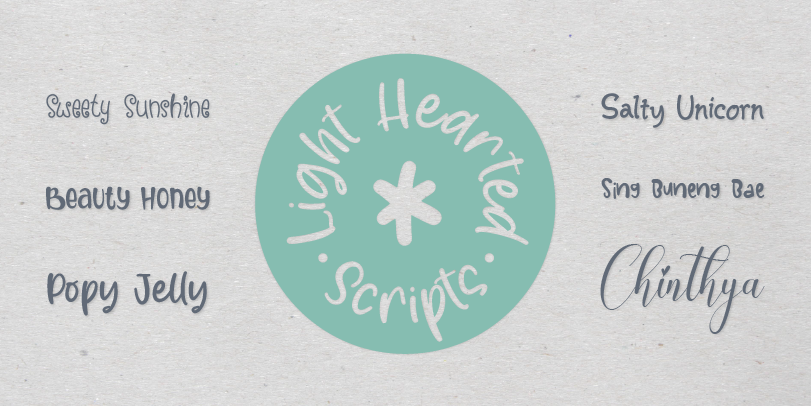
Perhaps it’s because of an optimistic view for 2021 that playful, lighthearted, scripts are being used more. They have a fresh handwritten quality and their free-form characters and unusual stroke weights give the fonts an irreverent, carefree, nature. Children’s brands are a natural for these special scripts. Their playful rounded forms are ideal for products aimed at a younger audience. They’re also happily at home in packaging, cover art and editorial design.
Sweety Sunshine is a breath of fresh air, its letters dance on the page with childlike freedom, while Beauty Honey combines cap and bi-form letters into a friendly, casual script that easily creates distinctive logos, powerful packaging and eye-catching banners. Popy Jelly and Salty Unicorn could be typographic brothers and sisters – or at least very close cousins. They celebrate the charming quirks of hand-drawn letters, while being energetic and playful. Both are ideal for packaging, social announcements and game branding. Chinthya has just a touch of formality, but is never stuffy, while Sing Buneng Bae takes advantage of a bevy of alternate characters to create one-of-a-kind headlines and logos.
Font Trend #2: Sans With a Twist
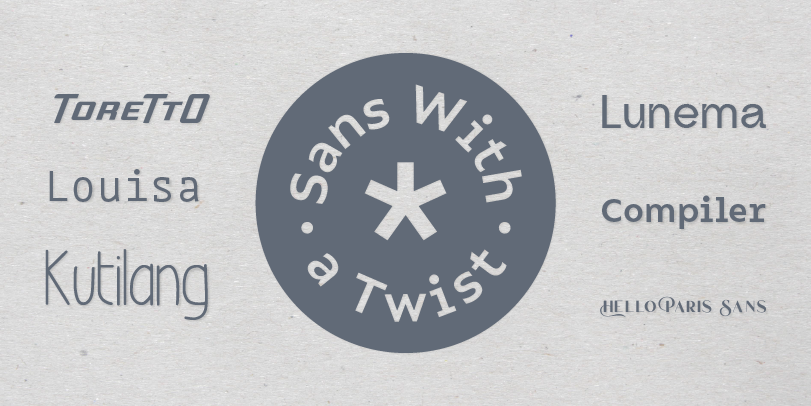
There’re new kinds of sans serif typefaces being drawn, and they’re getting attention. They range from Hubble Space Telescope precise to free-form and wildly romantic. All, however, take the basic sans serif design and add something special.
The Hello Paris Sans family is five weights of all-cap designs with contextual ligatures and flowing swash letters in the shift position. The result is a typographic confection with remarkable versatility. The Compiler family is 32 designs of apparent monospaced exactitude – except it isn’t monospaced. Compiler has the vestigial serifs typical of monospaced designs, while Compiler Plain does without. Brand recognition is guaranteed and the fonts can be used for websites, apps, corporate design, annual reports, wayfinding, and more. Louisa, however, is a true monospaced design. But characters like the lowercase a, e, g, k, v, w, x and y give it a friendly, welcoming demeanor. The italic fonts also have cursive underpinnings. ToreTtO is yet another take on highly structured, geometric sans. It’s forward-slanting caps and small caps can create commanding yet minimalistic statements in headlines, subheads, posters and cover art. Kutilang is a high-waisted, condensed design softened with a subtle calligraphic influence. It’s versatile, space-economical and distinctive. Lunema takes “ink traps” of the 1970s and 1980s to new heights. While very noticeable at large sizes, as point-size is reduced, they create an almost soft, flowing demeanor. The tail of the g and y provide a sharp counterpoint to this implied flexibility, making for a memorable design.
Font Trend #3: Swashes Galore
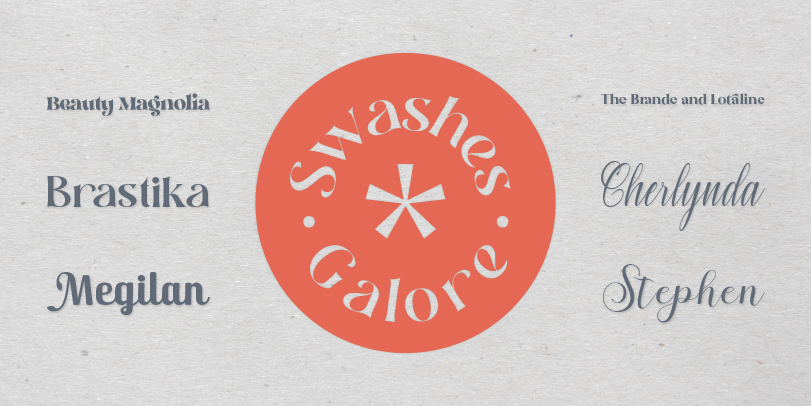
Fonts with swash characters have been around since the 1970s, so they’re not exactly trend setting.
But new designs are being added to the MyFonts offering almost daily. Most are modern versions of the 70s genre, but some are as new as tomorrow.
Brande and Lotaline and Beauty Magnolia are heavyweight serif designs that are surprisingly light on their feet, while Brastika is nine weights of flowing letterforms. The lightest and boldest weights create inviting banners and headings, while the midrange designs are perfect for navigational links and sub heads. Cherlynda is a flowing script that is ideal for crafting invitations, advertising headlines, product packaging, and posters for special events. Stephen is another flowing script with an abundance of swash alternatives, while Megilan is a soft sans serif with extraordinary flourishes.
Font Trend #4: Industrial Strength Sans
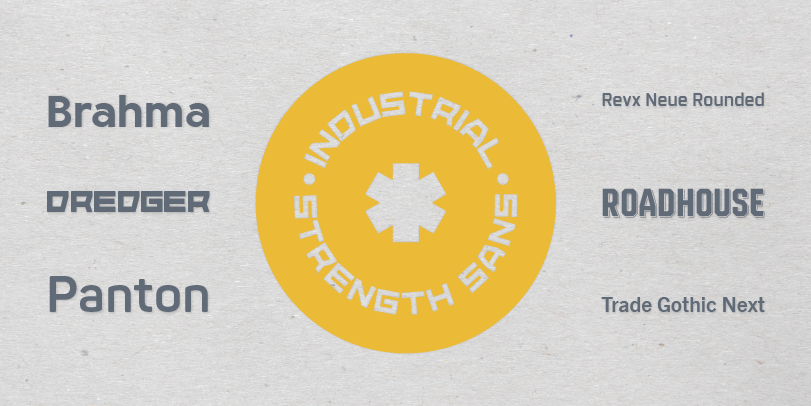
Industrial strength sans serif designs are marked by their straight forward power and design durability. They can be used in a wide variety of applications and with the assurance that they will not look dated or out of style.
Brahma is nine weights of assertive geometric sans suitable for print labels to digital banners – and pretty much everything in between. Revx Neue, and its companion design of Revx Neue Rounded, make for a large square sans serif family that is equally comfortable in print and on screen. The Panton family can only be described as massive. Another square-shouldered design with seemingly no limits, it is a typographic investment that will pay for itself many times over. Trade Gothic Next is a reimagining of the quintessential industrial strength sans serif design. Just as powerful as the original design, the new version is even more versatile. Dredger and Roadhouse are display designs with character that will easily stand the test of time.
Font Trend #5: Heavyweight Display Designs
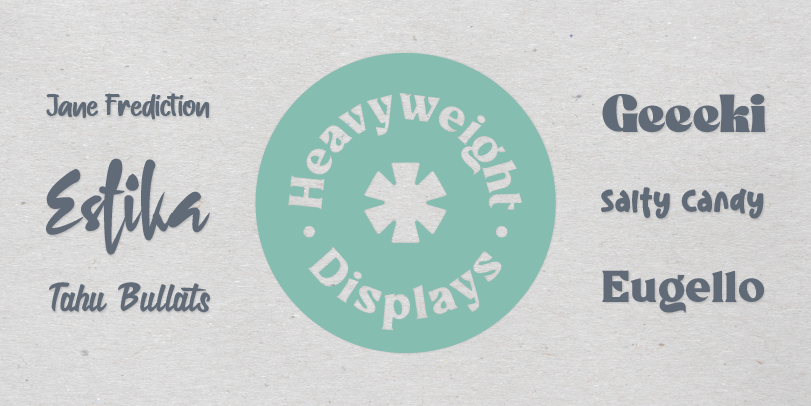
These are single-weight display typefaces with presence and character. Their plus-size proportions and playful vibe make them exceptional performers at large sizes.
Estika, Jane Frediction, Salty Candy and Tahu Bullats are scripts – each with a different demeanor. Estika is immediate and a little edgy, while Jane Frediction is folksy and friendly. Salty Candy has a fresh naivete and Tahu Bullats has an, almost upright, sign painter’s script. Eugello and Geeki are serif designs with heavyweight charm. All are perfect foundations for poster art, logo design, print headlines, digital banners and just about anyplace else that calls for a typeface that stands out and wears well.